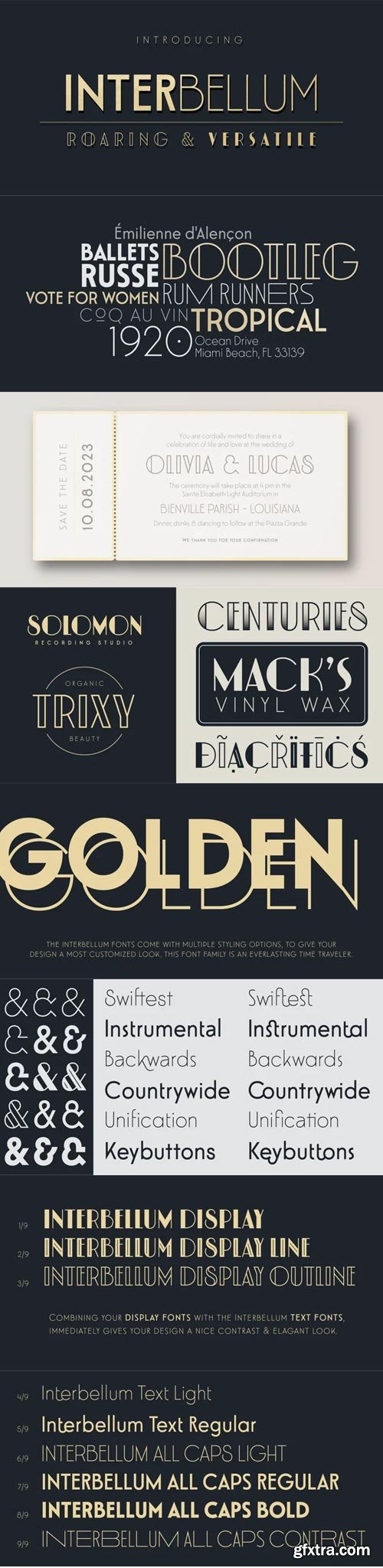
Interbellum Font Family
Interbellum is an Art Deco inspired font family which contains 3 display fonts, 2 modern-looking text fonts and 4 AllCaps fonts. In combination, you can easily give your designs a bold, yet elegant look. And by using the many different style sets, it is able to stand tall in all sorts of designs.